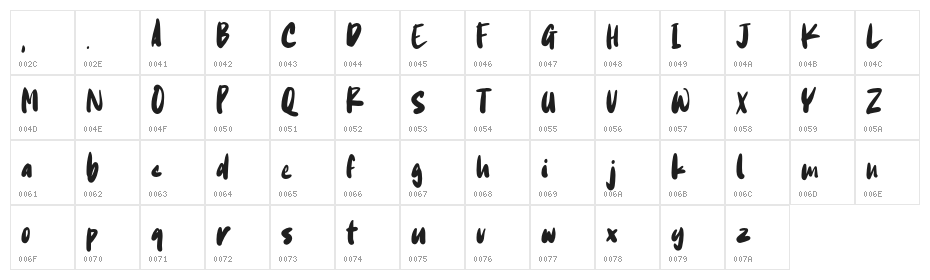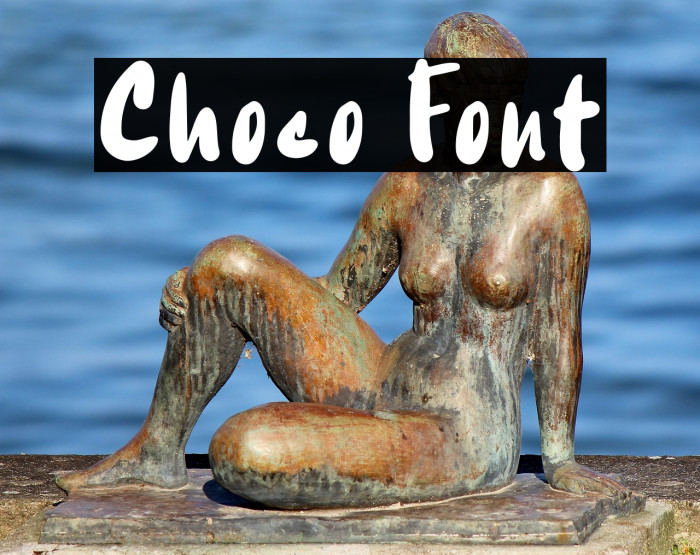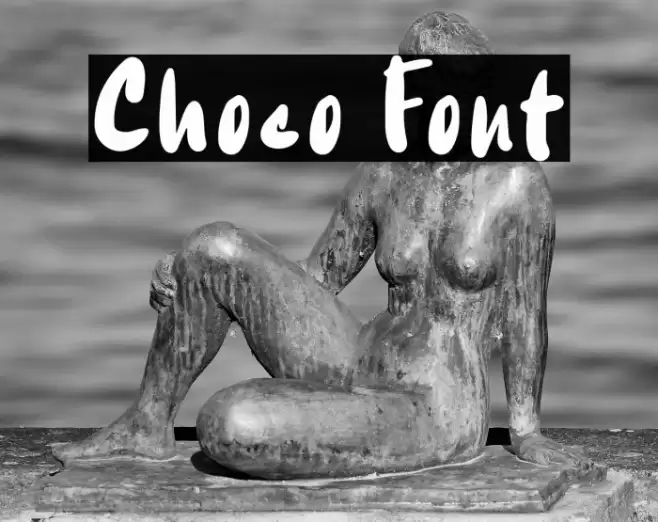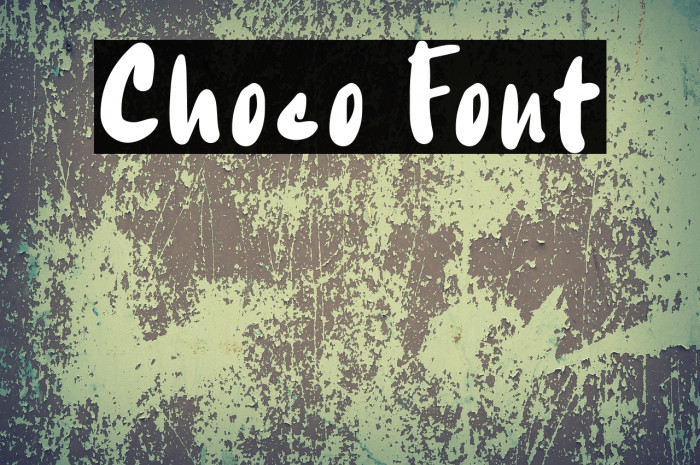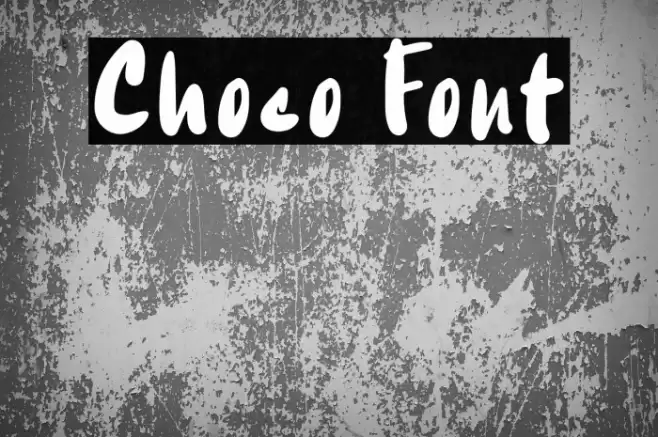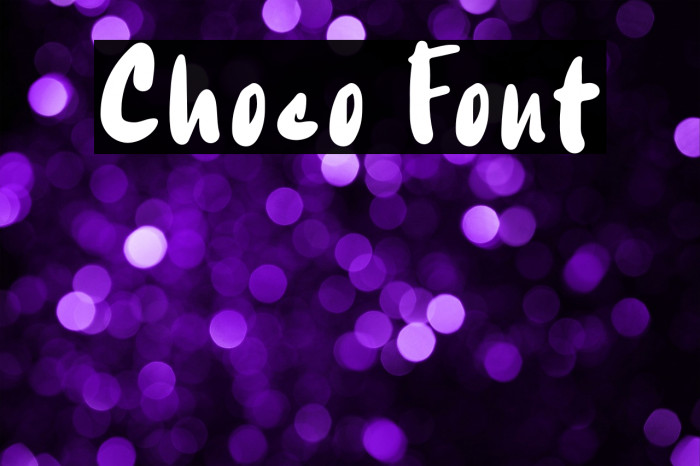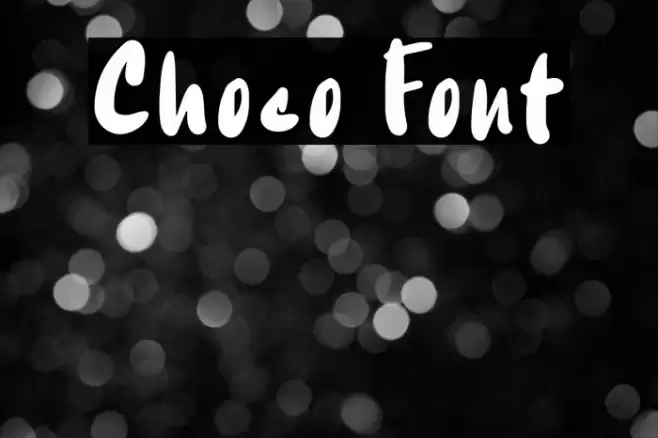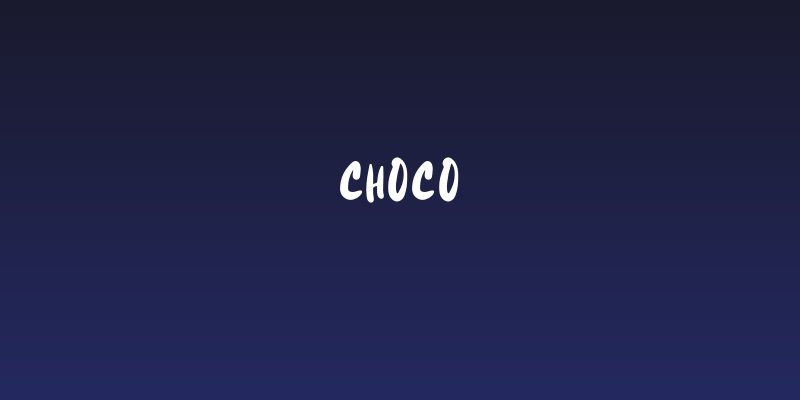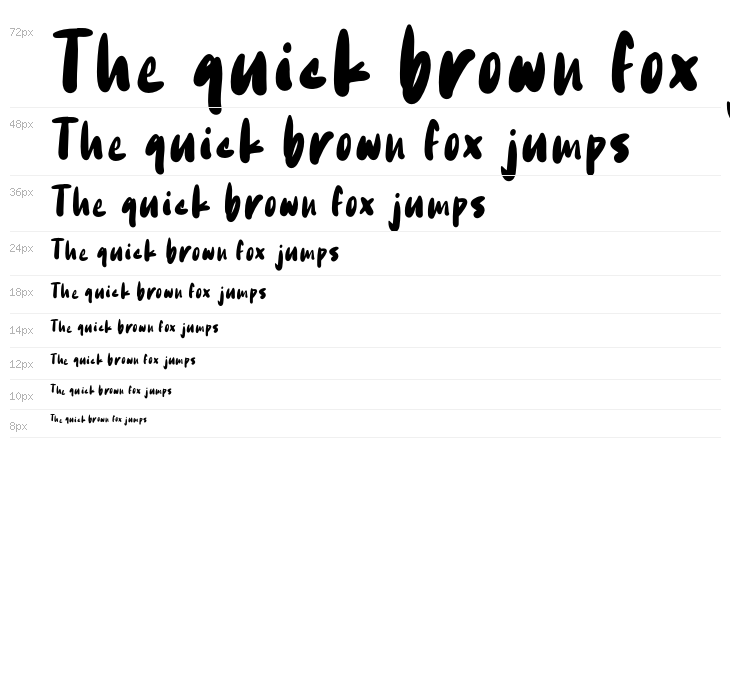
Choco Font
Choco Description
This font features a bold and playful handwritten style, characterized by its thick, rounded strokes and casual, flowing appearance. The uppercase letters are large and expressive, while the lowercase letters maintain a consistent, friendly look. The font lacks traditional serifs, giving it a modern and approachable feel. Its informal style is perfect for projects that require a personal touch, such as invitations, greeting cards, or playful branding. The absence of special characters and numbers suggests a focus on alphabetic expression, enhancing its suitability for creative and artistic applications.
| Overall Style | Playful, Modern |
| Use Case | Headlines, Artistic designs |
| Proposed Projects | Ideal for invitations, greeting cards, playful branding, and artistic designs. |